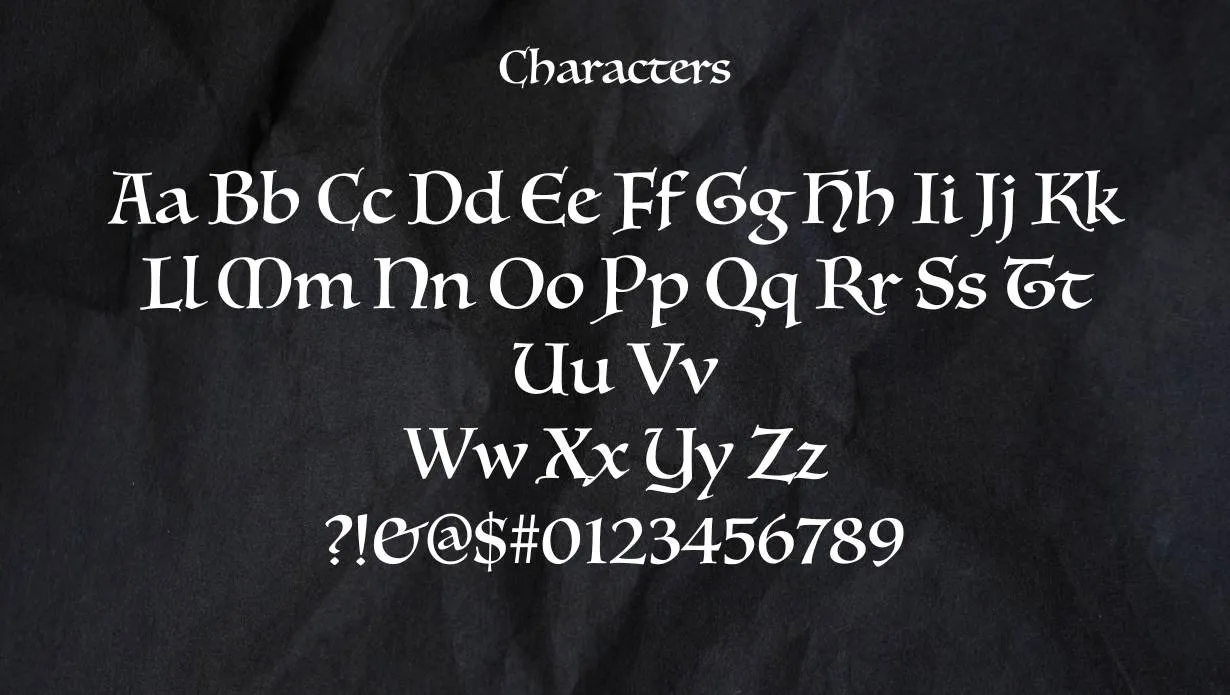
Crafted by Philip Bouwsma, the “Luminari” font adds a stylish and creative touch to your text, with its calligraphic and decorative design. Whether you’re working on a school project or creating a special invitation, this font will surely make your words stand out. Start using “Luminari” today and elevate your text to a whole new level of sophistication and elegance.
With its unique letterforms and intricate detailing, Luminari stands out as a creative choice for projects requiring a sense of elegance and creativity. It’s often used in invitations, artistic displays, and designs where a personalized touch is essential.
NameLuminari Font
DesignerPhilip Bouwsma
StyleCalligraphy